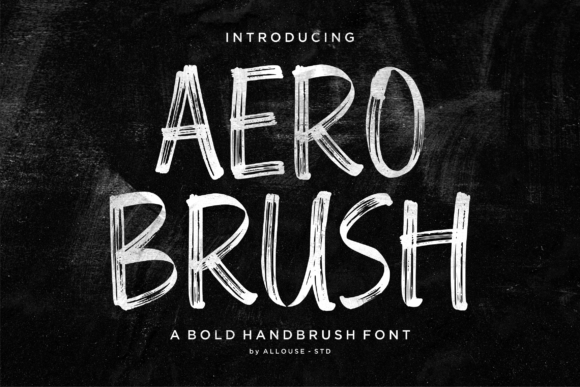
Aero Brush Font: Elevate Your Designs with a Touch of Elegance
Are you looking for a font that can add a personal touch to your designs? Look no further than the Aero Brush Font, a beautiful handwritten brush font introduced by Allouse.Studio. In this article, we’ll explore the features and benefits of Aero Brush, and how it can elevate your designs to the next level.
What is Aero Brush Font?
Aero Brush is a carefully crafted handwritten brush font that is perfect for a variety of design projects. Its unique and elegant strokes make it ideal for product packaging, branding projects, magazines, social media, wedding designs, and more. With Aero Brush, you can add a touch of sophistication and personality to your designs, making them stand out from the crowd.
Key Features of Aero Brush Font
- Multilingual Support: This font supports multiple languages, making it a versatile choice for designers working on international projects.
- Handwritten Brush Style: Aero Brush boasts a beautiful, handcrafted brush style that adds a personal and artistic touch to any design.
Uses of Aero Brush Font
Aero Brush is incredibly versatile and can be used in a wide range of design projects. Here are some ideas to get you started:
- Product Packaging: Add a touch of elegance to your product packaging with Aero Brush. Its unique strokes and elegant feel make it perfect for luxury brands and product labels.
- Branding Projects: Create a lasting impression with Aero Brush. Use it for logos, business cards, and other branding materials to give your brand a personal and sophisticated look.
- Magazines and Editorials: Aero Brush is ideal for magazine headers, article titles, and other editorial uses. Its readability and style make it a great choice for print and digital publications.
- Social Media Graphics: Stand out on social media with Aero Brush. Use it for quotes, promotions, and other graphic posts to add a touch of personality to your content.
- Wedding Designs: Make your wedding designs truly special with Aero Brush. Use it for wedding invitations, programs, and other stationery to create a romantic and memorable feel.
Why Choose Aero Brush Font?
With so many fonts available, why choose Aero Brush? Here are a few reasons why Aero Brush stands out:
- Unique Style: Aero Brush offers a unique and distinctive style that will set your designs apart from the rest.
- High-Quality Design: The font is carefully crafted with attention to detail, ensuring a high-quality design that looks great in any context.
Aero Brush Font by Allouse.Studio is a versatile and elegant handwritten brush font that can elevate your designs to new heights. With its unique style, multi-format support, and ease of use, Aero Brush is perfect for a wide range of design projects. Whether you’re working on product packaging, branding, magazines, social media, or wedding designs, Aero Brush is sure to add a touch of sophistication and personality to your work. So why wait? Download Aero Brush today and start creating stunning designs that stand out from the crowd!